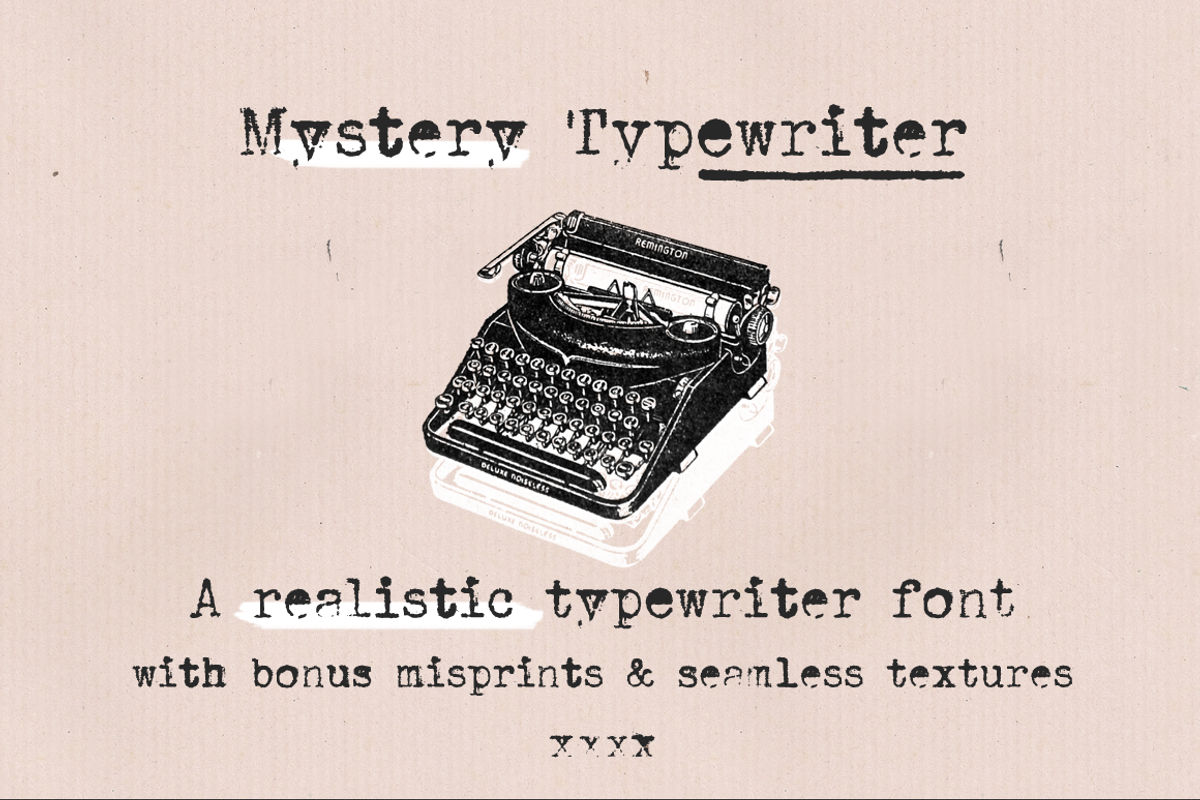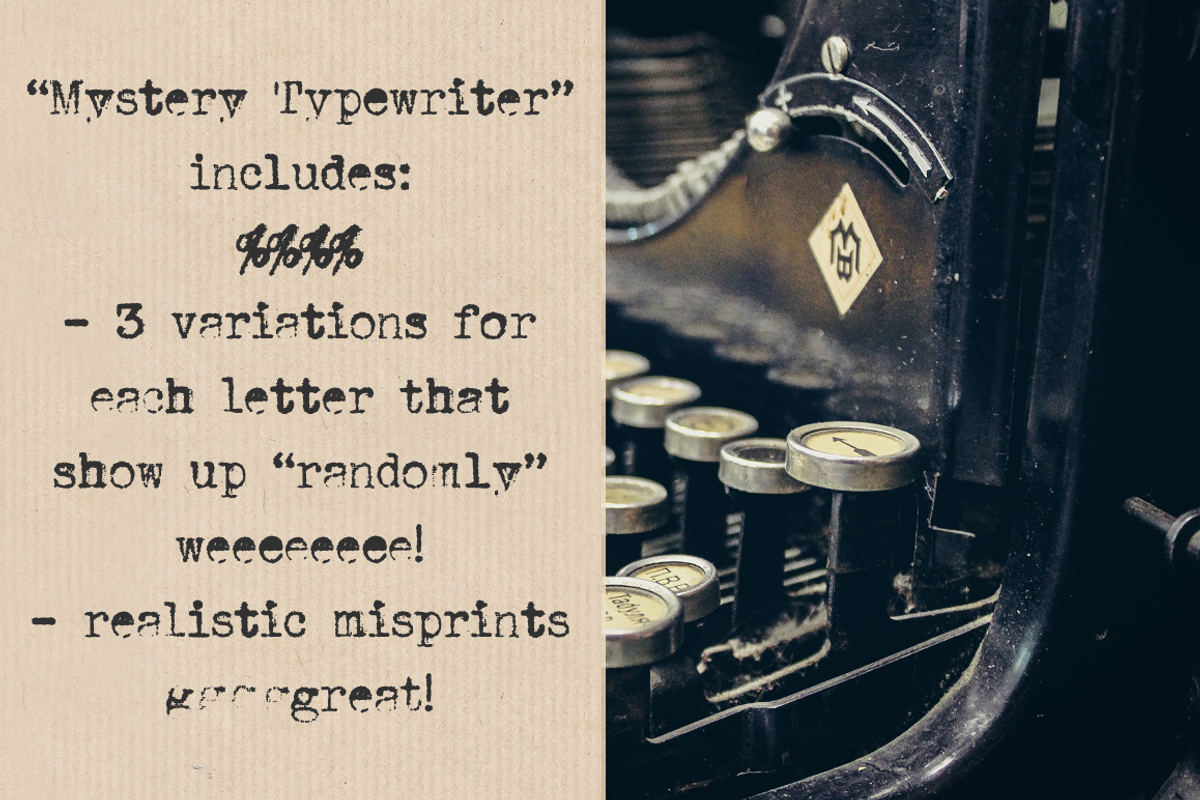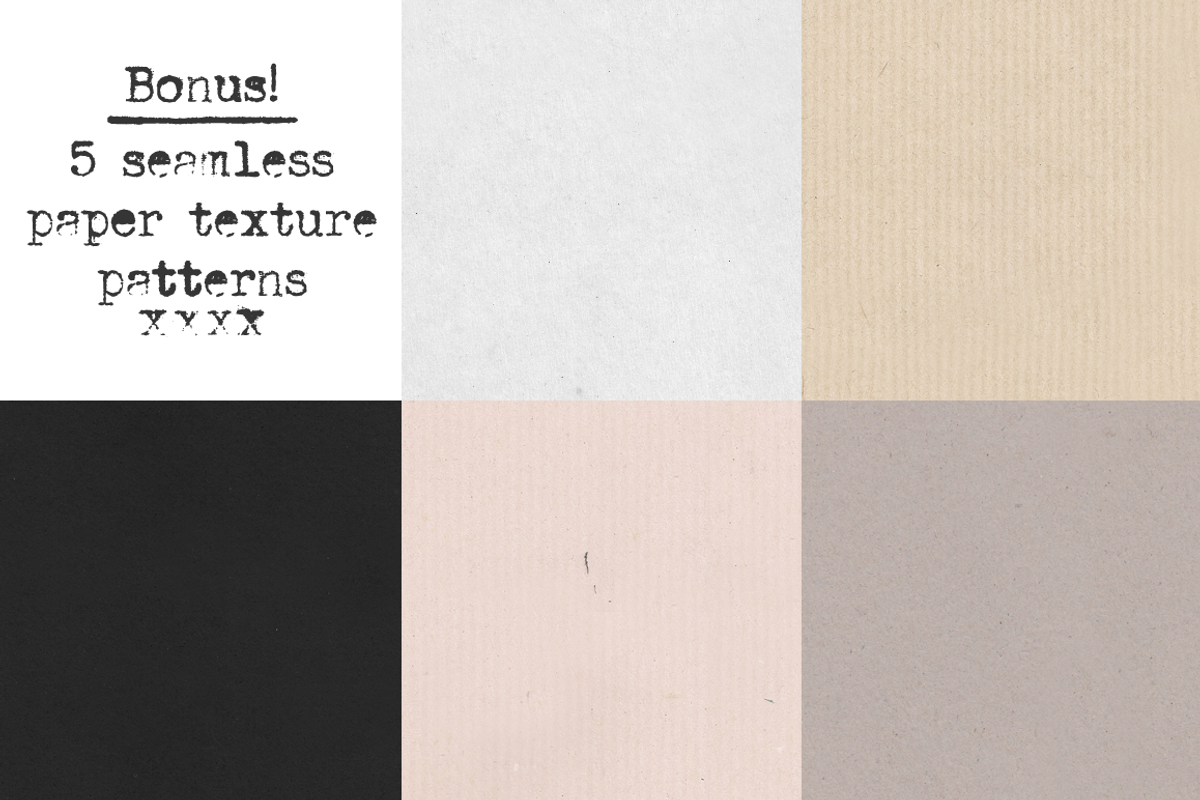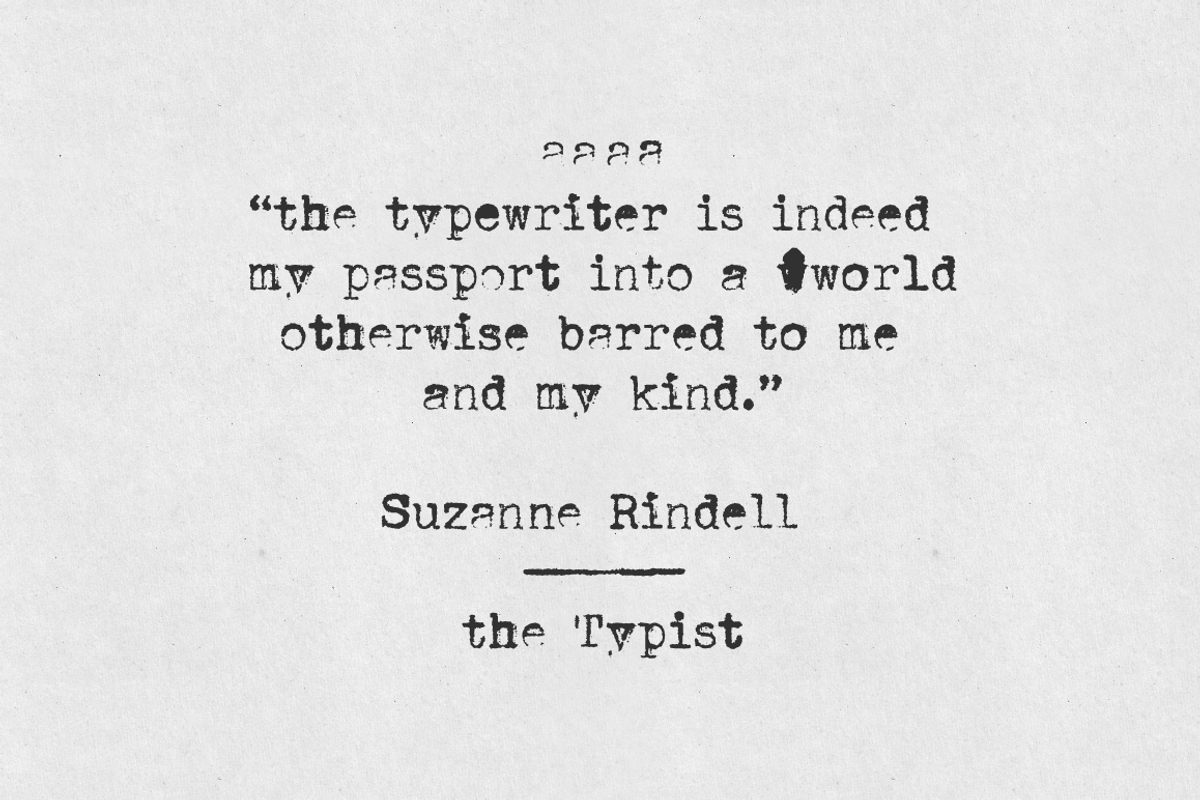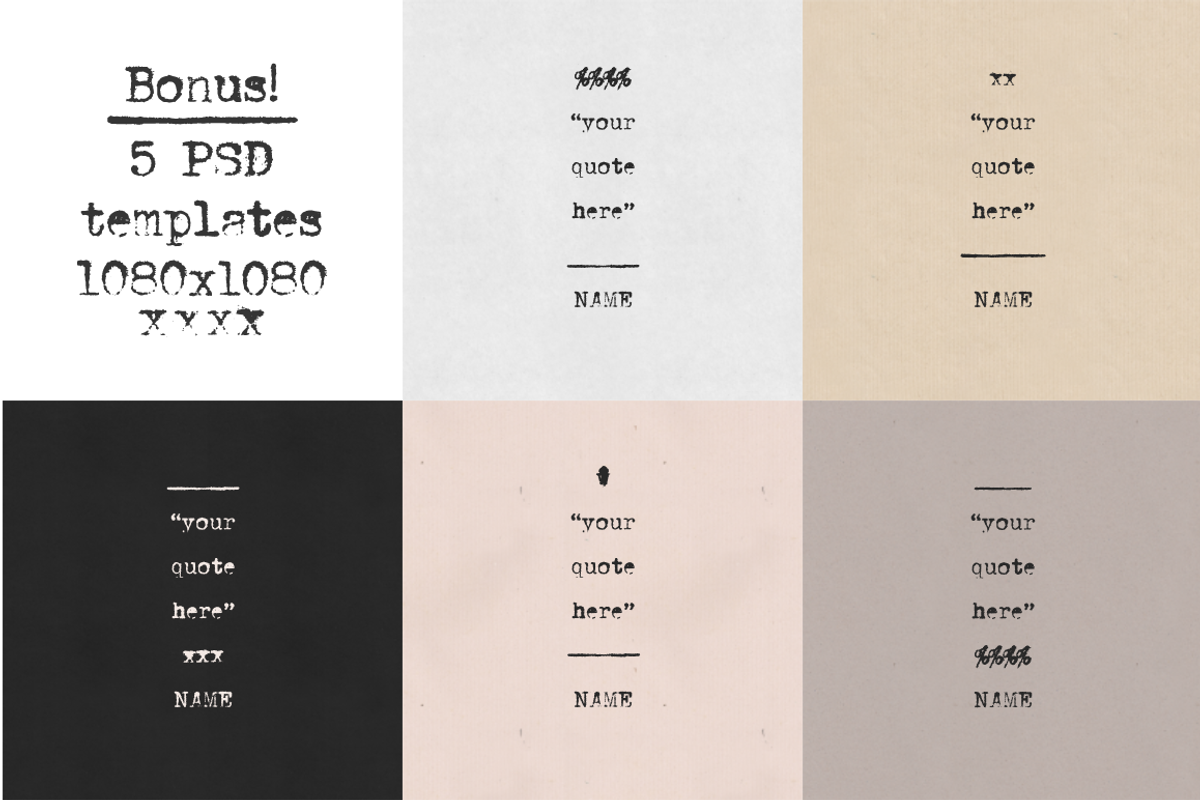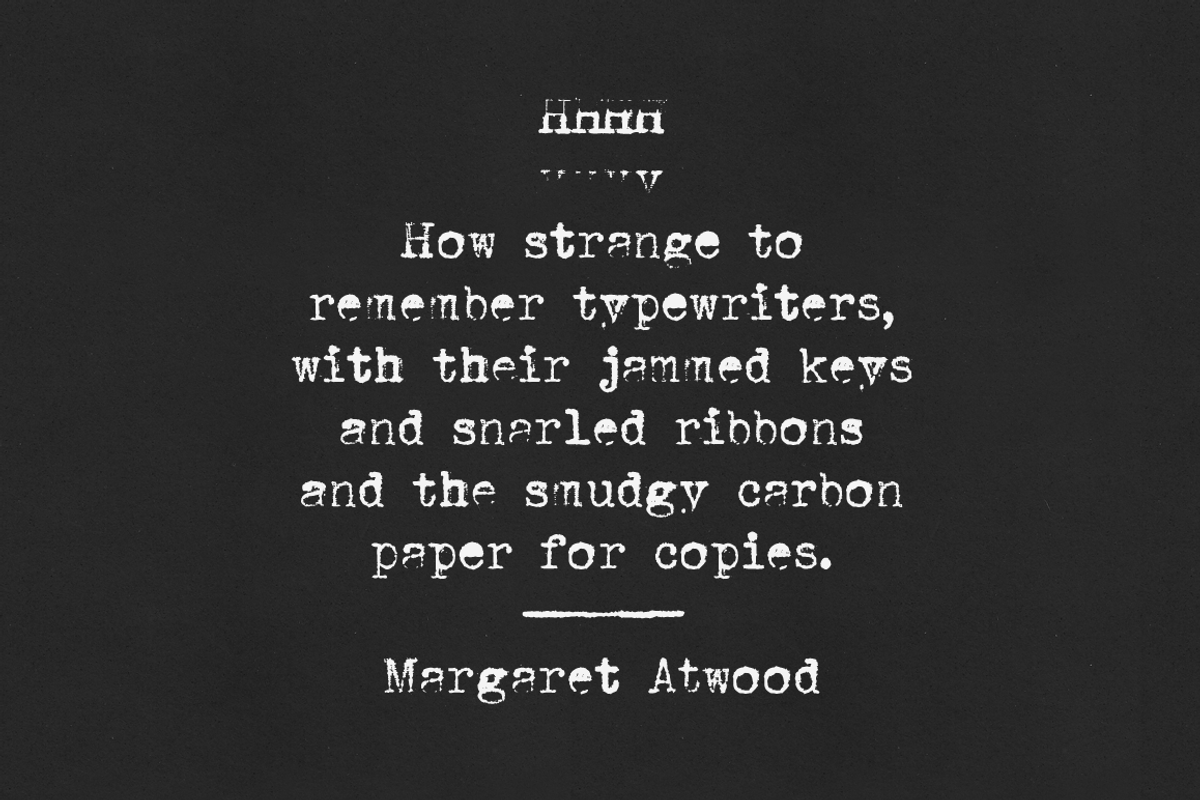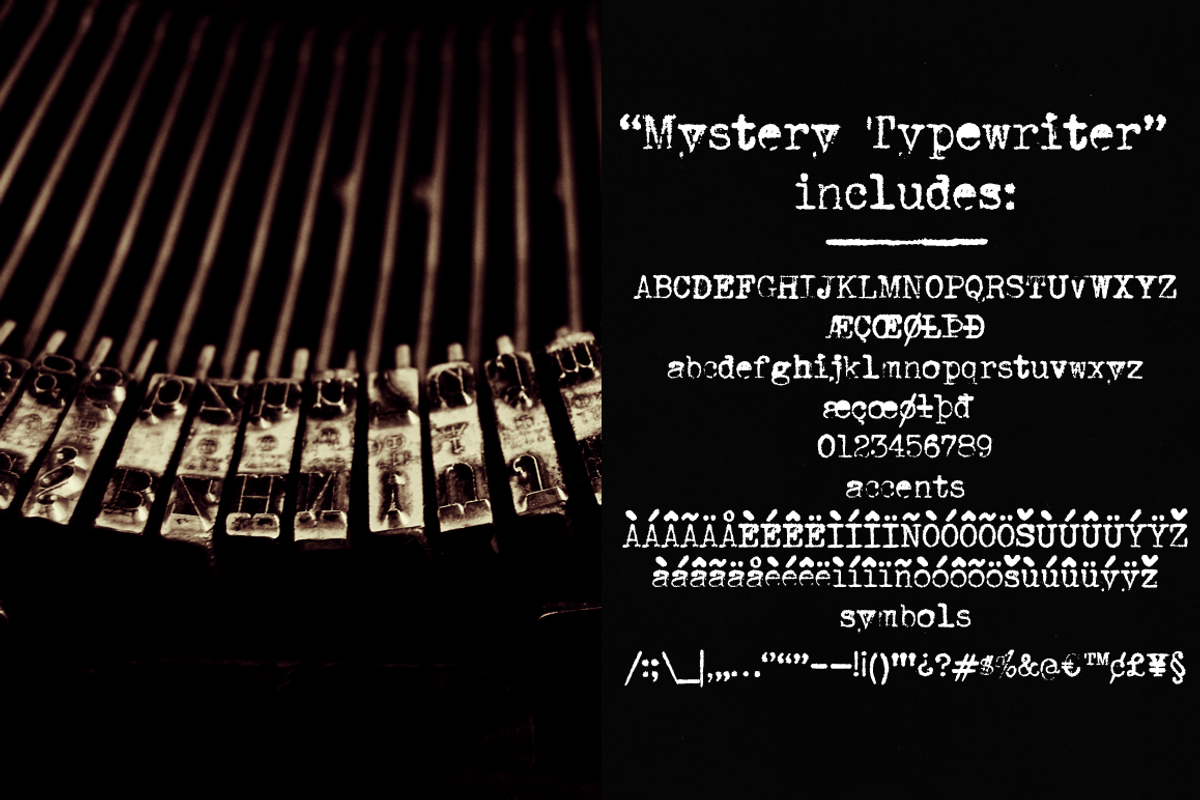
Mystery Typewriter font
Mystery typewriter is a realistic typewriter font with bonus misprints and seamless textures.
Font with up to 3 alternatives for each letter, number and symbol, accessible through contextual alternates
An extra set of 26 misprints to turn up the grunge volume in your designs
This typewriter font is perfect for:
Adding an authentic feel to your retro and vintage designs. It will look great in logotypes and branding, packaging, editorial and website design in both titles and text, social media posts, posters and billboards, handmade postcards and tags.
Writing your own mystery stories, while pretending you are Jessica Fletcher sitting down at her typewriter.
Solving real-life mysteries.